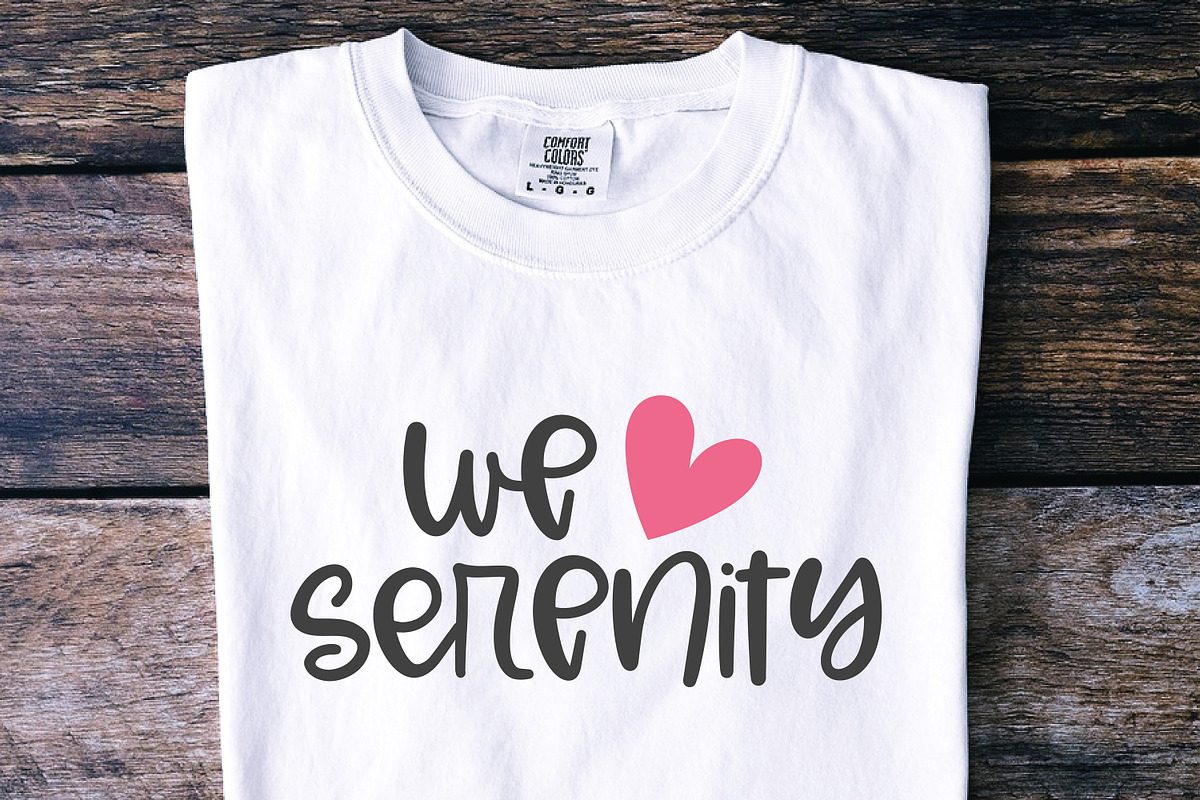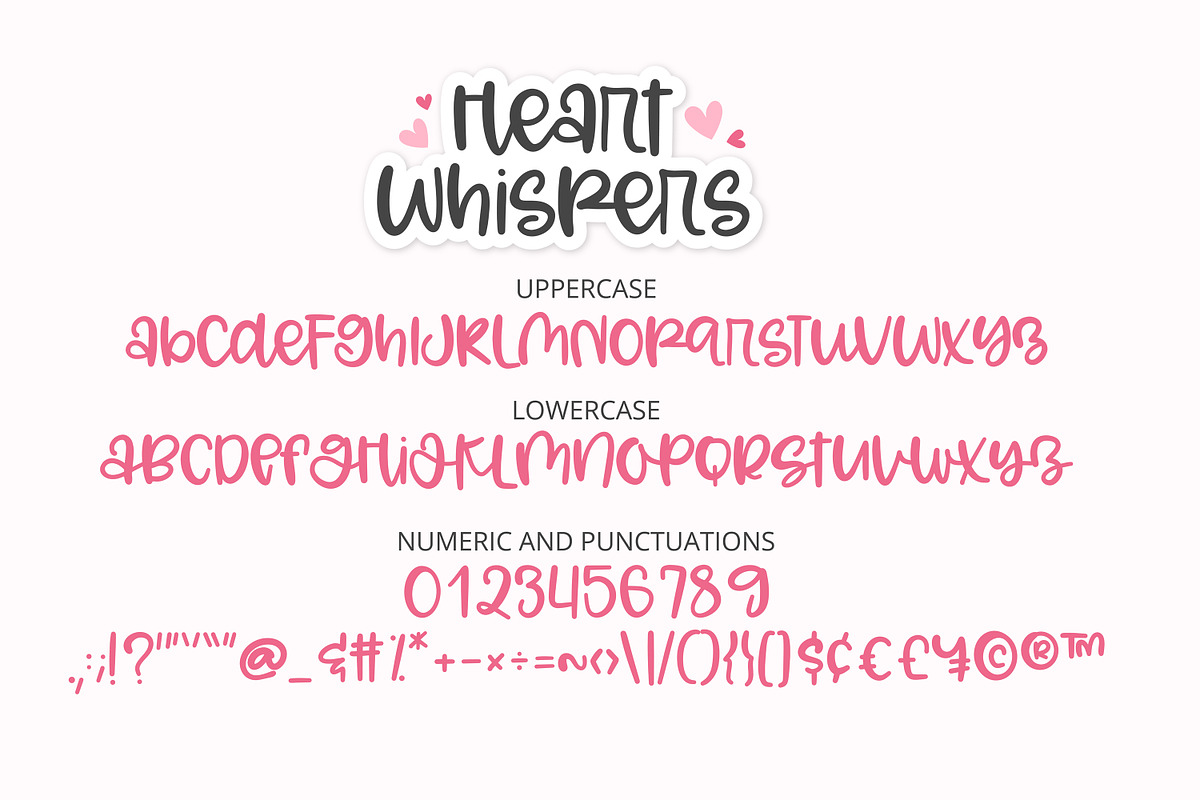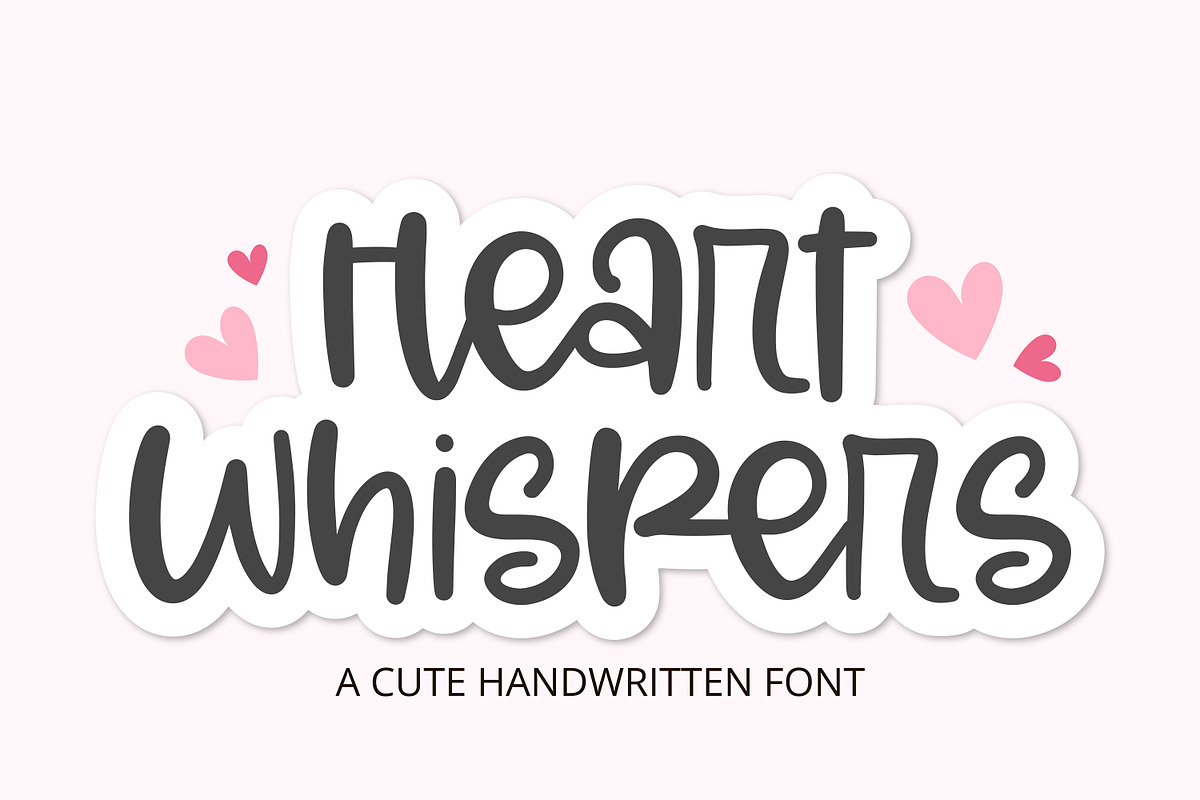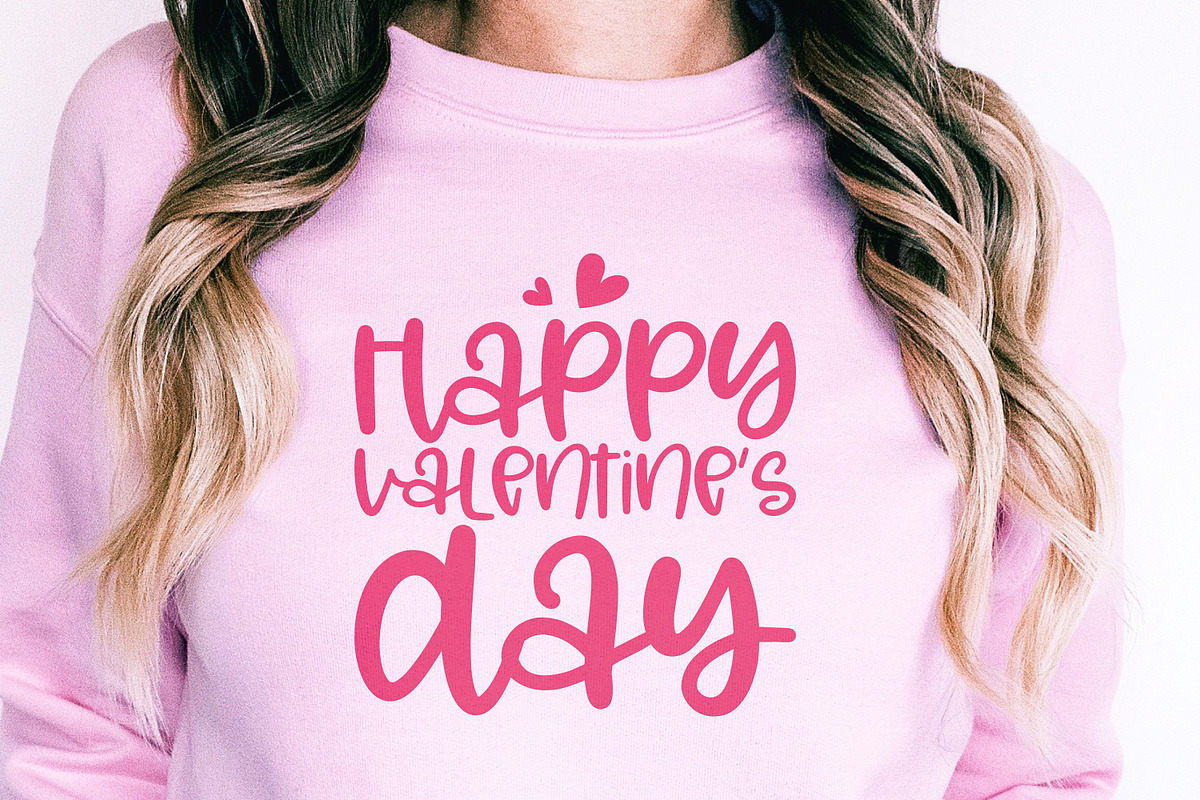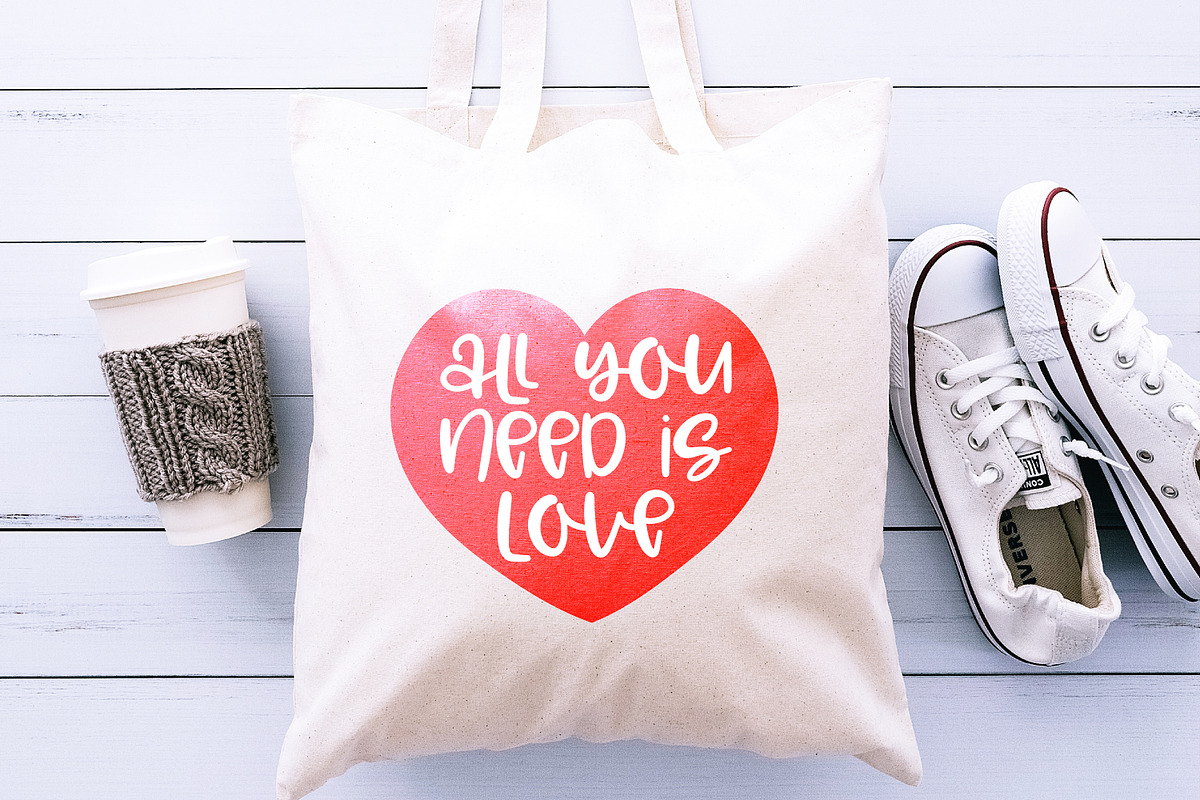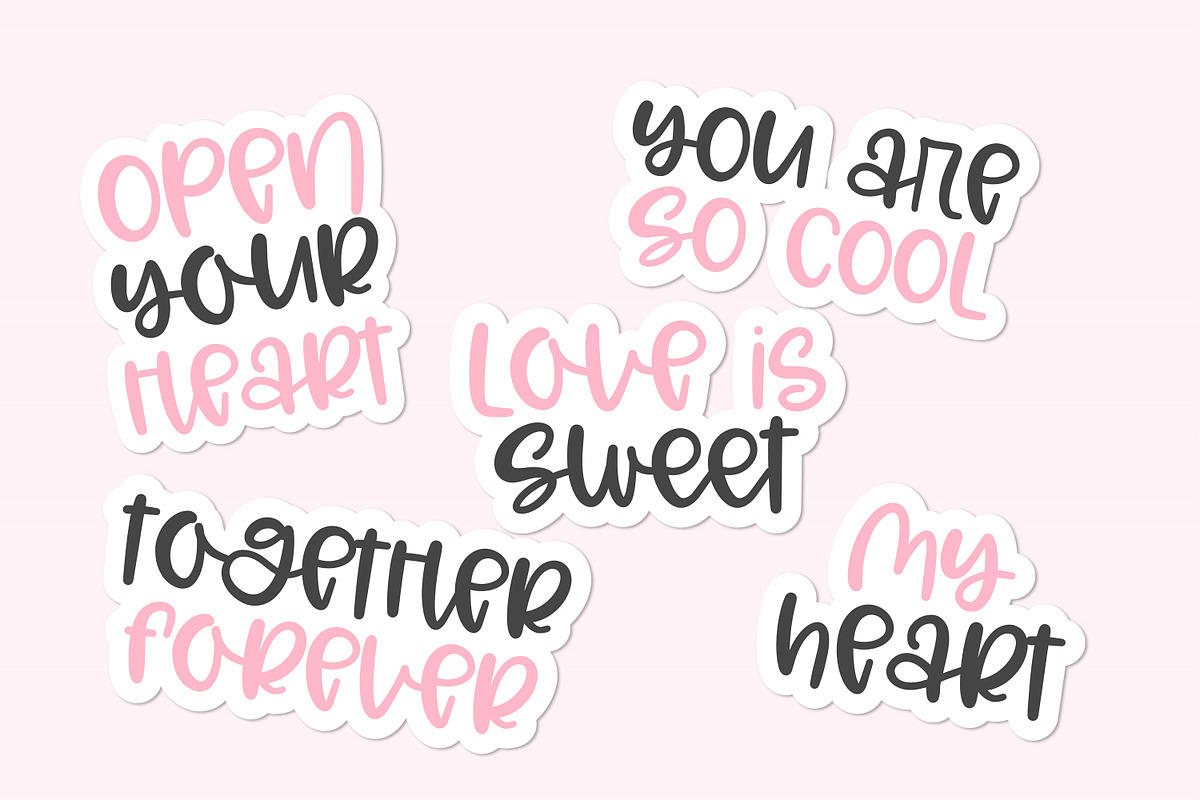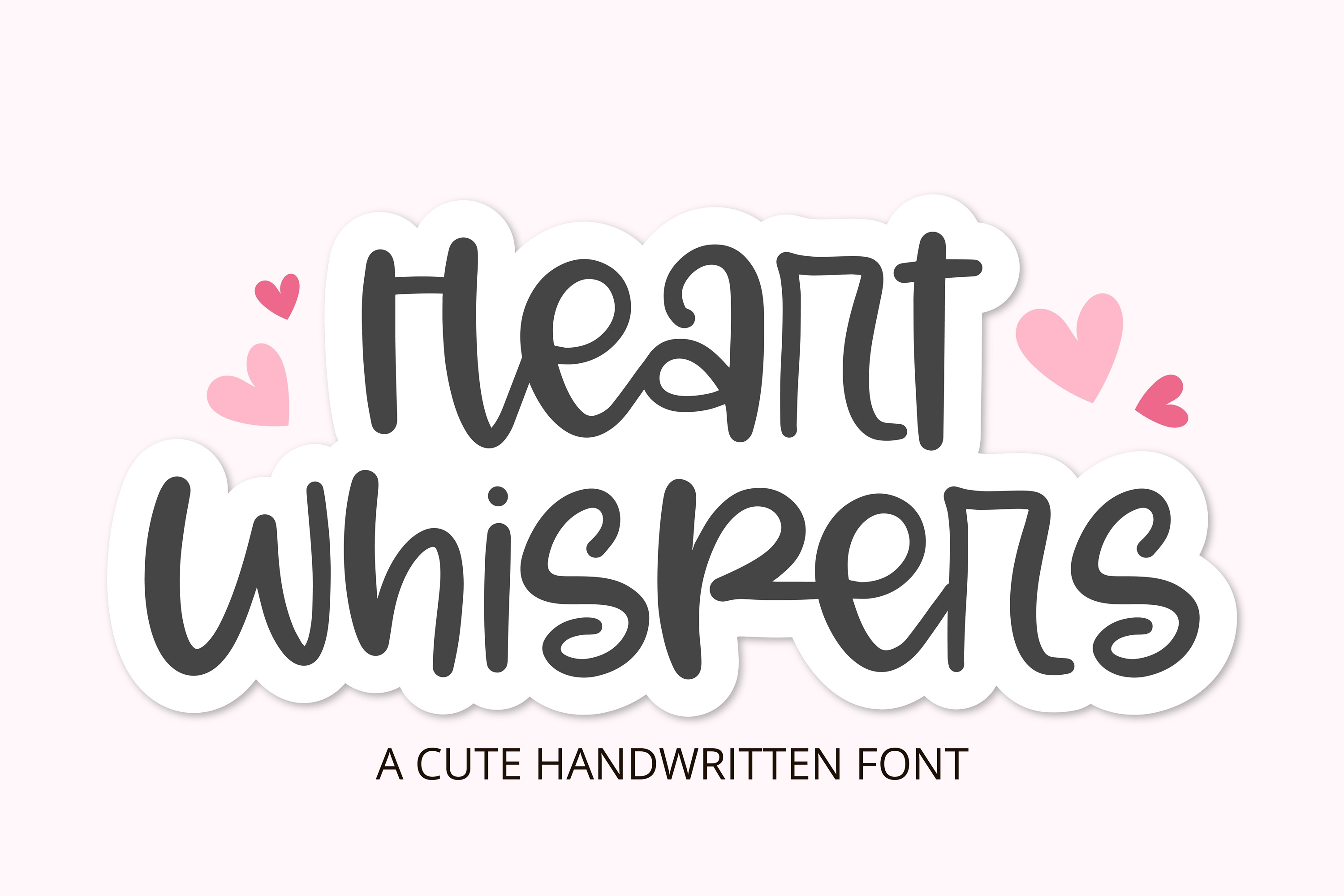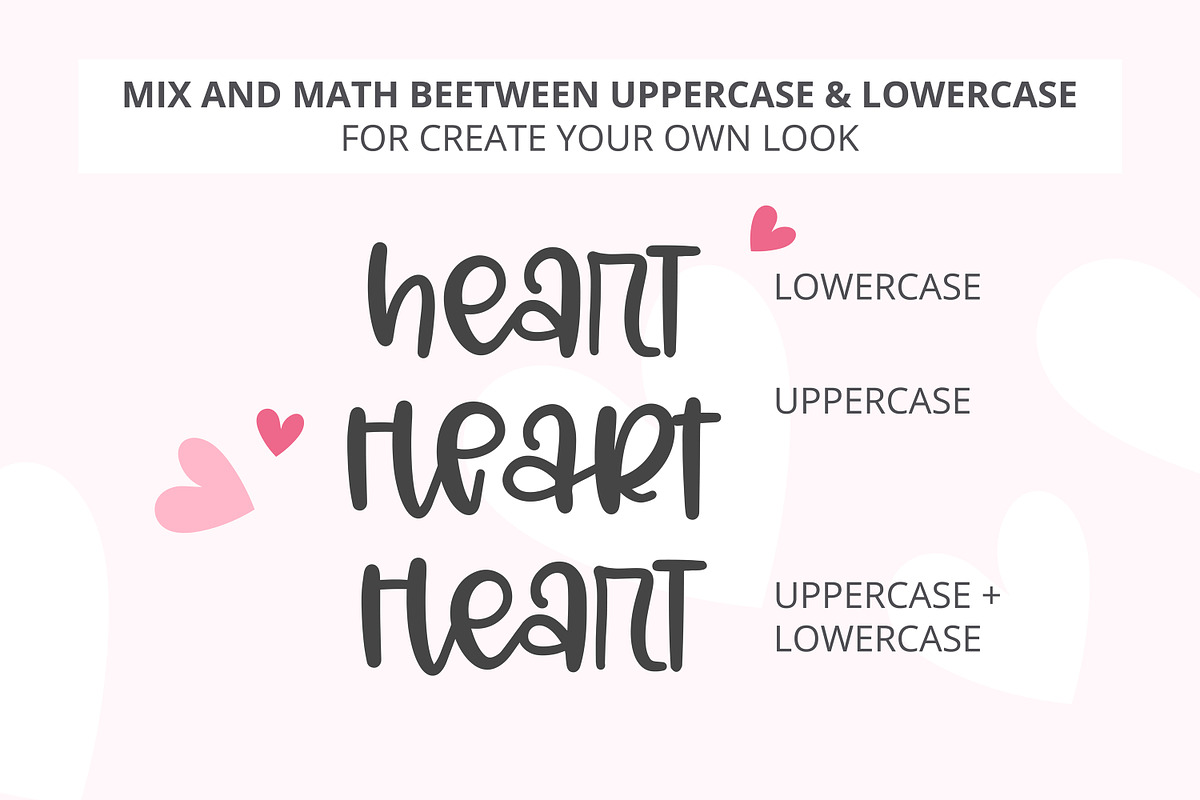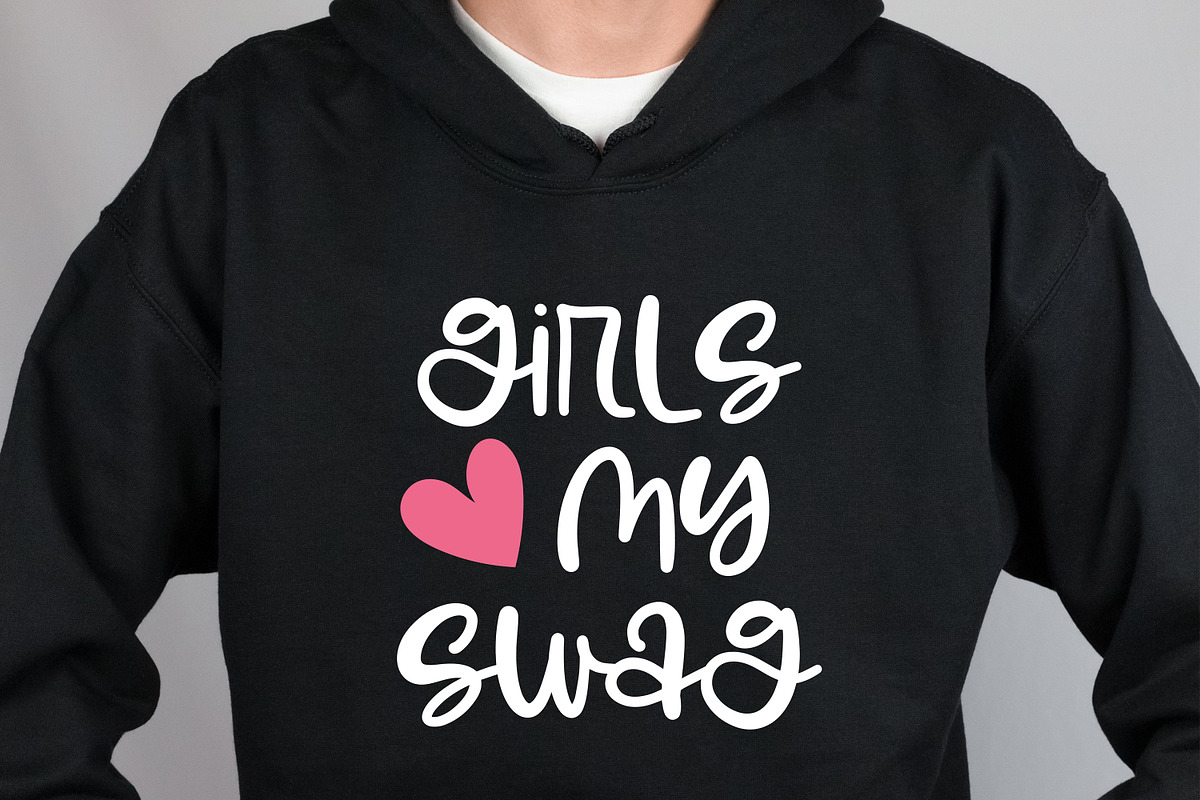
Heart Whispers - Cute script font
Heart Whispers Font - Cute Handwritten Script for Your Valentine's Projects
Introducing Heart Whispers, a delightful handwritten script font designed with love for your Valentine's Day projects! This cute and modern monoline font features playful, casual letterforms that mimic the sweet, informal handwriting style, perfect for adding a personal touch to your designs.